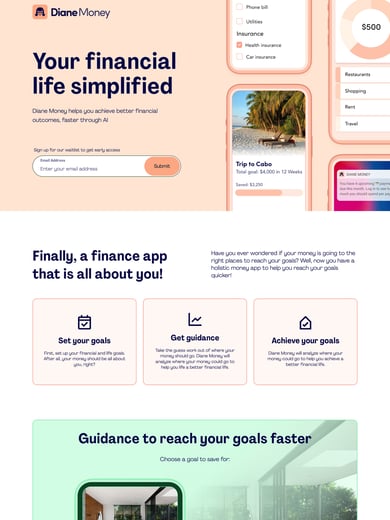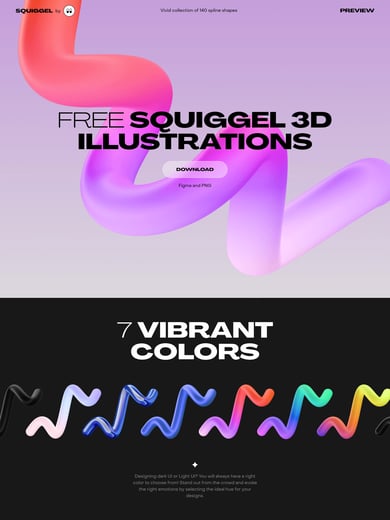
Agrandir
Agrandir deliberately brings irregularity into a sans-serif family instead of pursuing modernist neutrality. Pangram expands that idea through Tight, Narrow, Normal, Wide and Grand families, plus a Text family. The choice of width and subfamily can make as much difference to a composition as the weight.